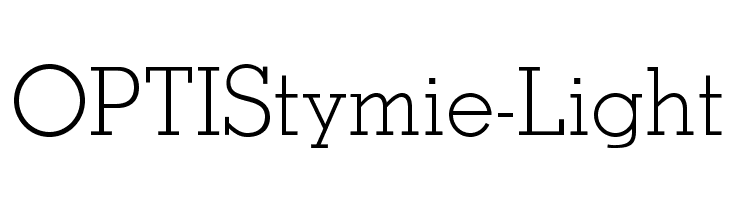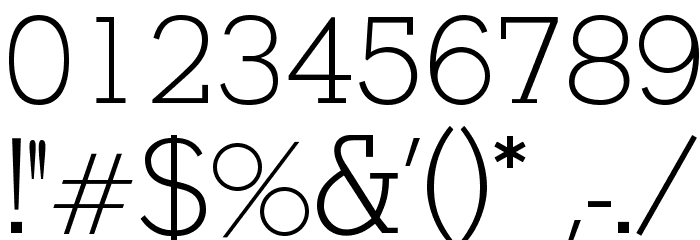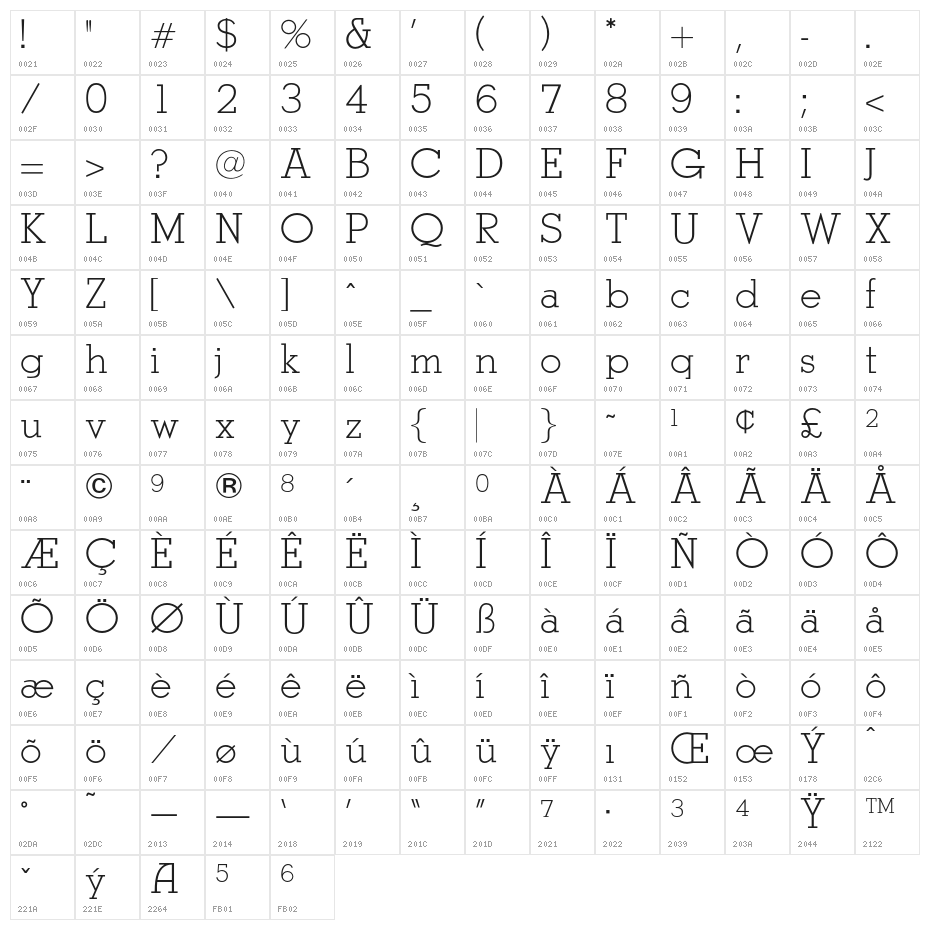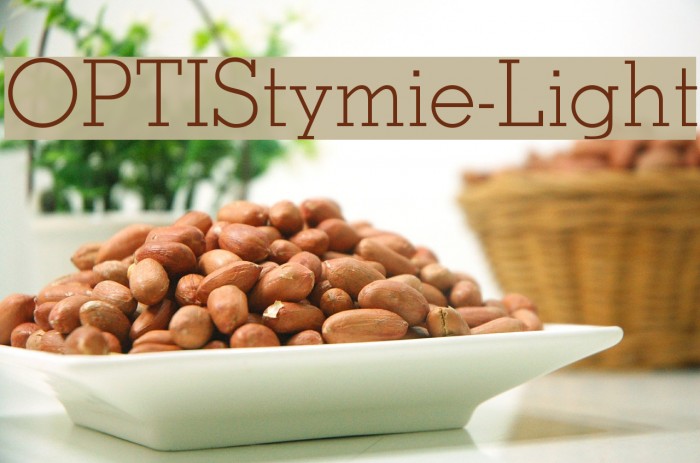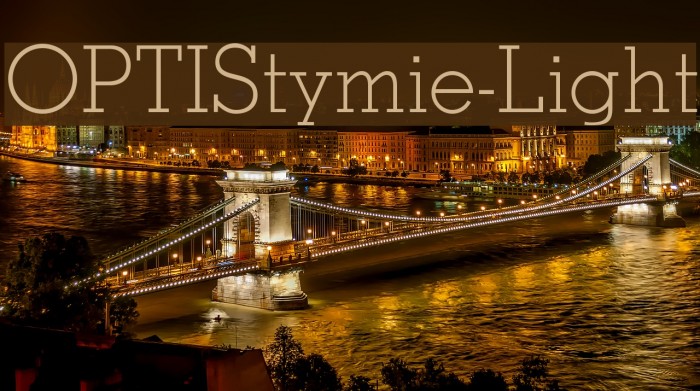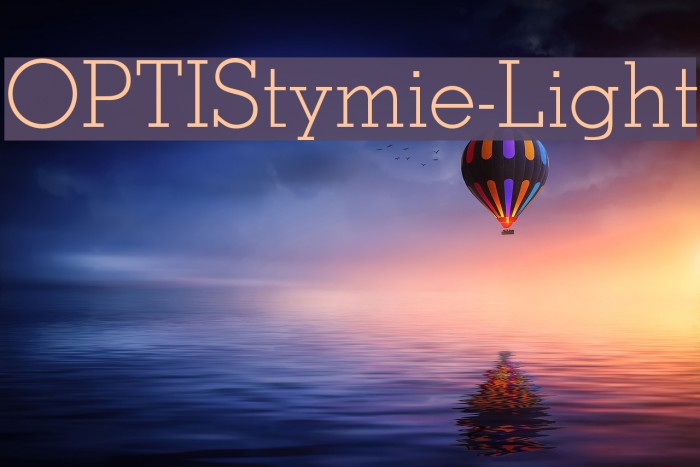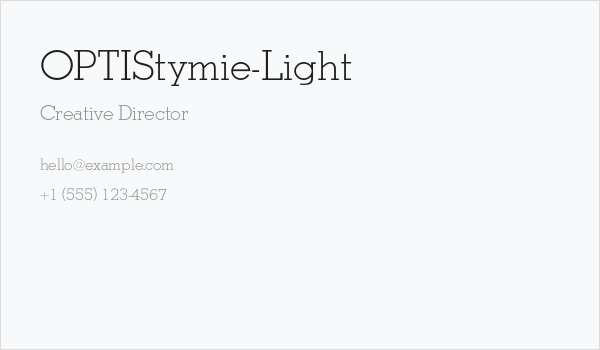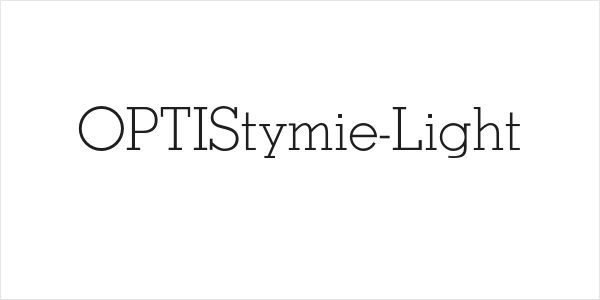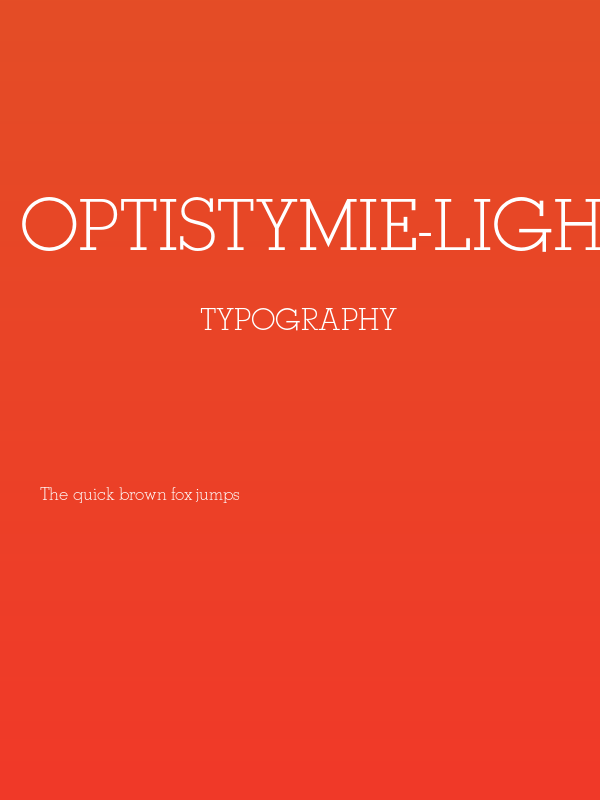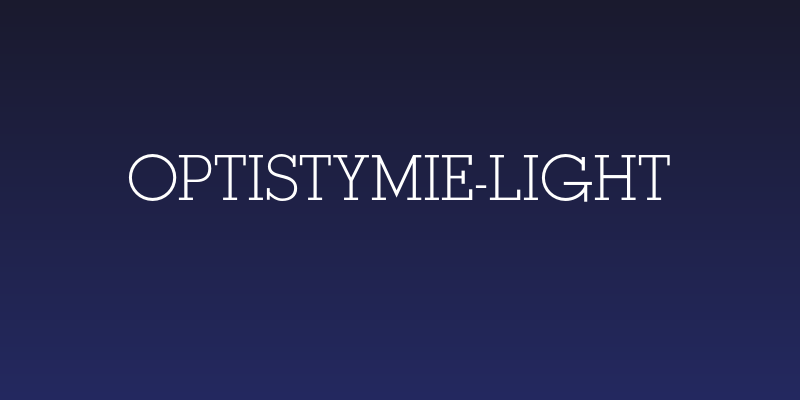
OPTIStymie-Light Font
OPTIStymie-Light Description
This font features a classic serif design with a light weight, offering a refined and elegant appearance. The characters are well-proportioned with a moderate contrast between thick and thin strokes, enhancing readability while maintaining a sophisticated look. The serifs are subtle yet distinct, adding a touch of tradition to the overall modern aesthetic. The uppercase letters are tall and commanding, while the lowercase letters are more rounded and approachable. The numerals are clear and consistent, making them suitable for both text and display purposes. Special characters are thoughtfully designed, ensuring versatility across various applications.